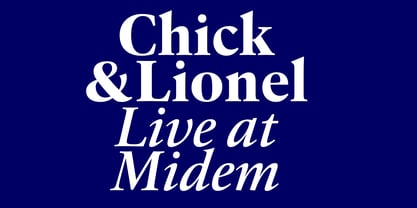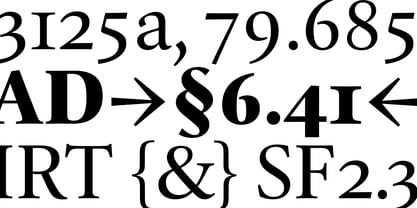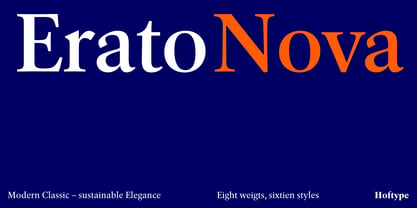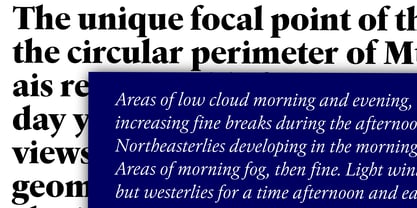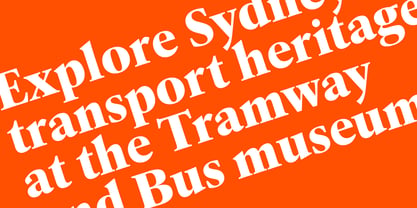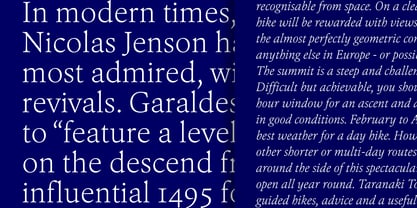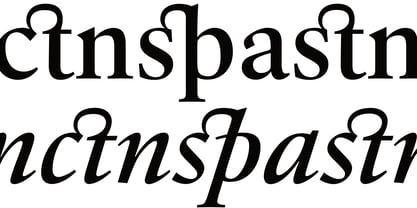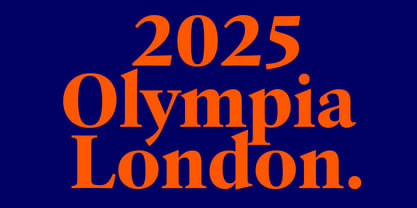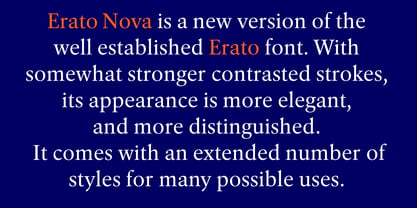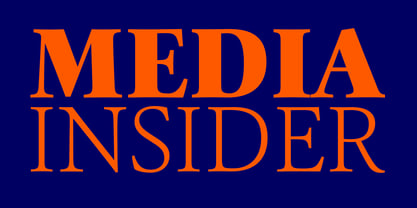
Erato Nova
La famille de polices Erato Nova a été conçue par Dieter Hofrichter et publiée par Hoftype. Erato Nova contient 16 styles et options de package familial. En savoir plus sur cette famille
Erato Nova is a new version of the well-established Erato font. This typeface belongs to the category of classic serif fonts but features modern graphic details that become particularly striking at larger sizes. With somewhat stronger contrasted strokes, Erato Nova presents a more elegant and distinguished appearance. It offers an extensive range of styles, making it suitable for various applications such as branding, editorial design, and web use.
German designer Dieter Hofrichter started his foundry in 2010. Since then, he has remained focused on developing text fonts that integrate the rich history and tradition of typography with contemporary styles. Based in Munich, his first typeface on MyFonts was Impara, a sans serif with lively stroke ductus and distinct humanistic characteristics that is a representation of linear coolness and classic elegance. Since his debut, he has continued to produce beautiful, high quality serif faces. Capita, one of the foundry’s best sellers, is a self-dominated face with a fresh style that avoids the harshness of many slab serifs. Dieter has also seen success with one of his most recent designs, Mangan, a text face that combines classical rationality with contemporary design. “One of our intentions is to utilize the knowledge of the history of type to create contemporary types,” Dieter says. “Style consciousness and many years of experience in type design are our qualifications for producing functional and usable types of high quality.”